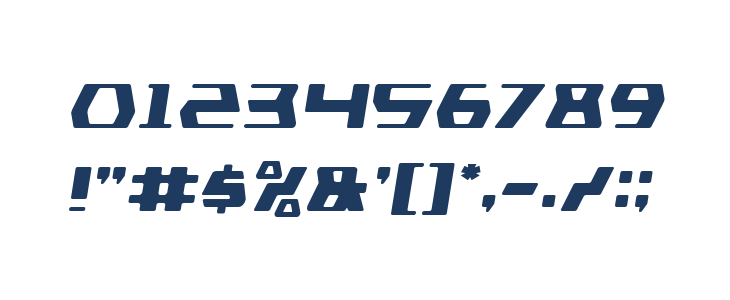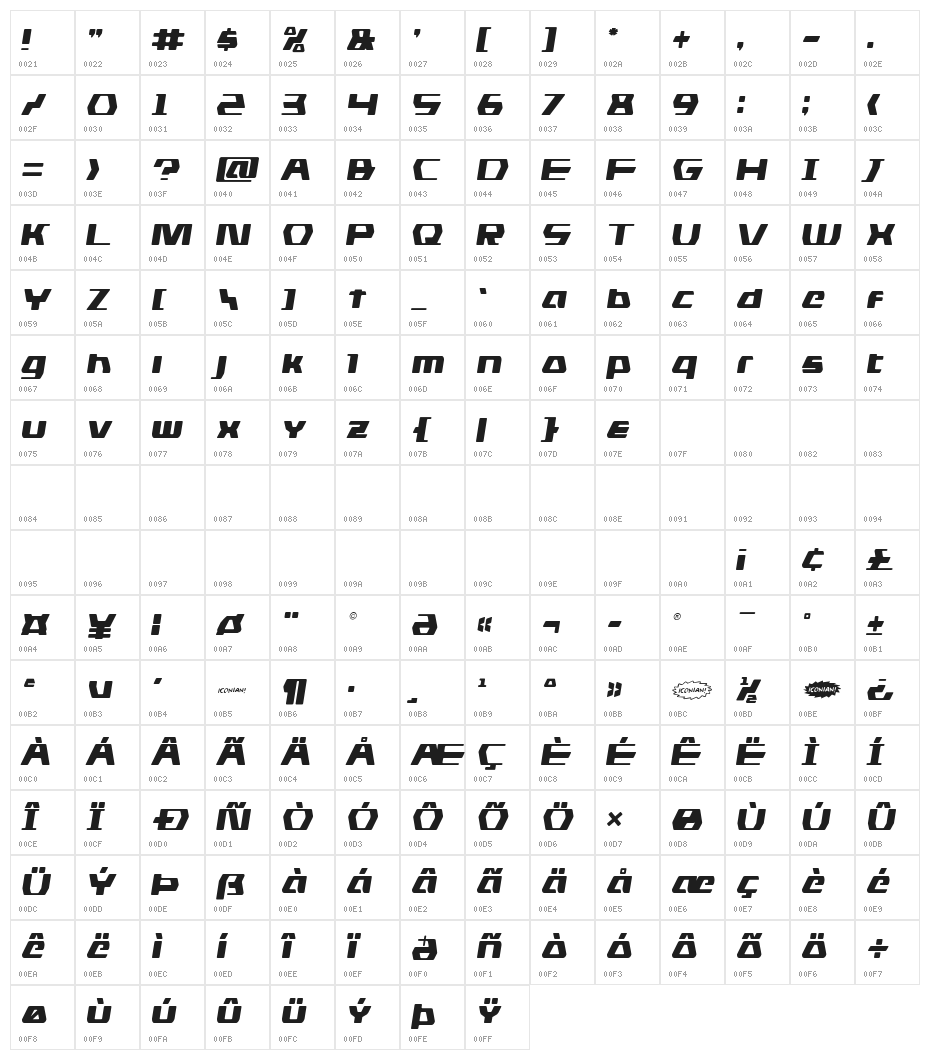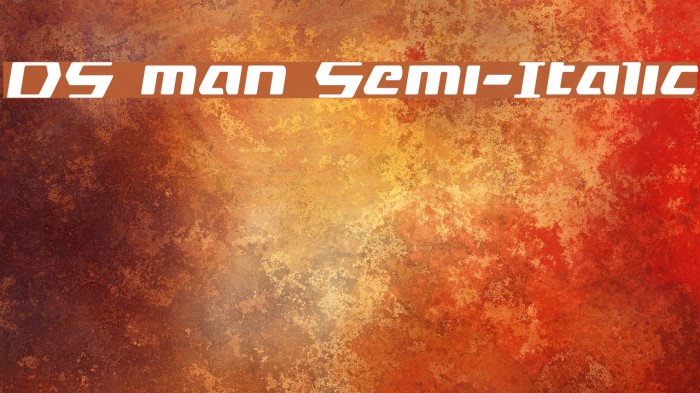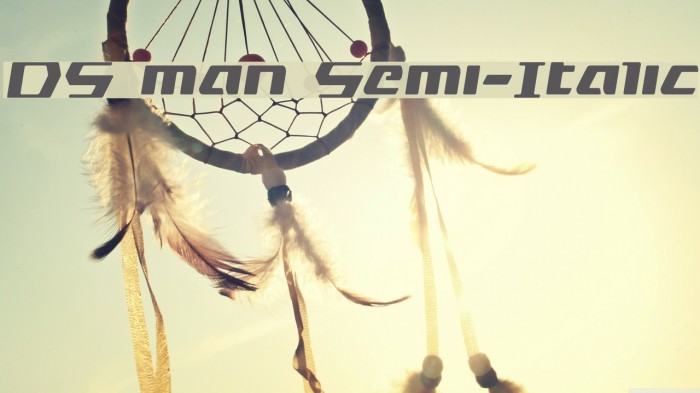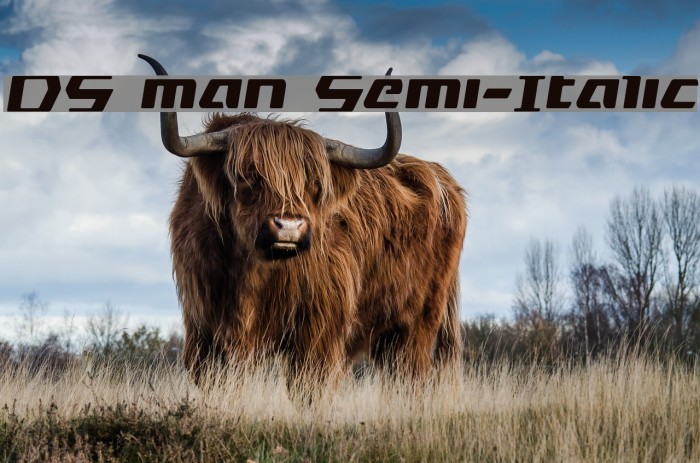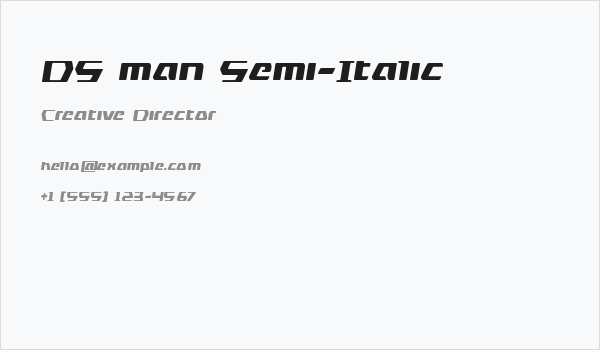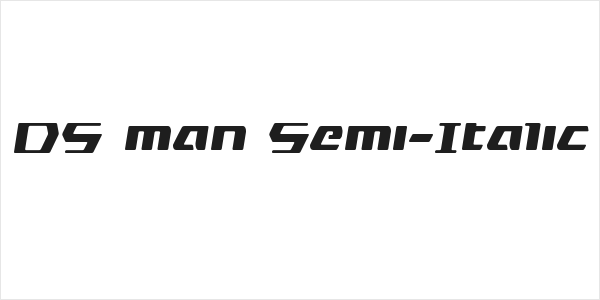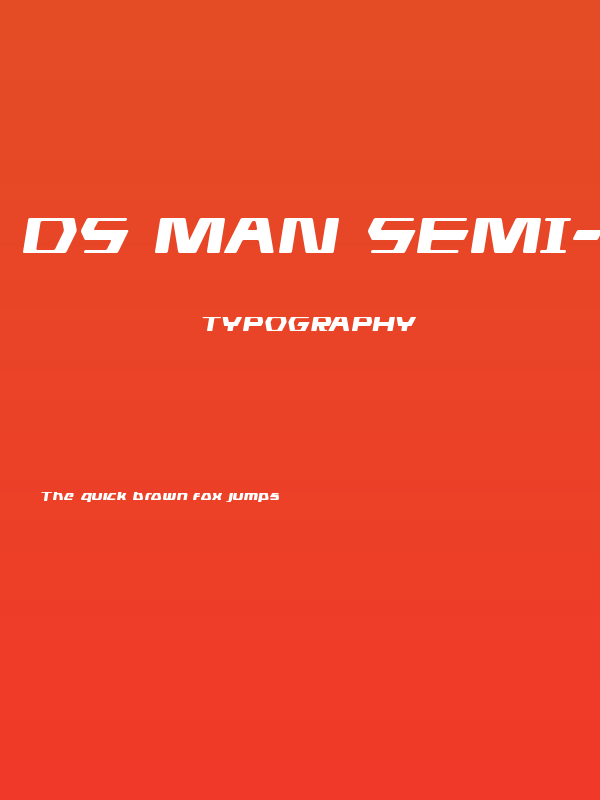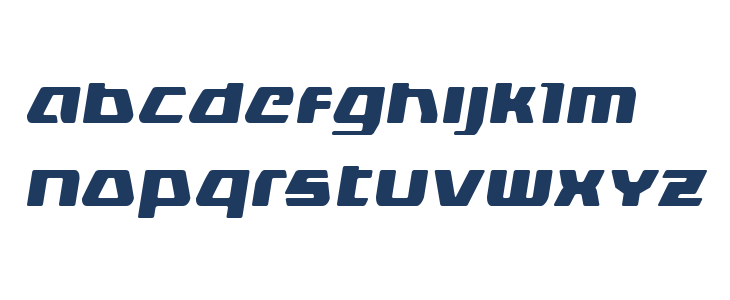
DS man Semi-Italic Font
DS man Semi-Italic Description
This font features a bold and dynamic design with a futuristic flair. The characters are slightly italicized, giving a sense of motion and speed. The angular cuts and sharp edges contribute to a modern, tech-inspired aesthetic. The uppercase and lowercase letters maintain a consistent style, with the lowercase characters mirroring the uppercase in form but with a slightly reduced height. Numbers are bold and clear, matching the overall style of the alphabet. Special characters are distinct and integrate seamlessly with the rest of the font, ensuring versatility in various applications.
| Proposed Projects | Ideal for technology branding, sports team logos, video game titles, and sci-fi themed posters. |